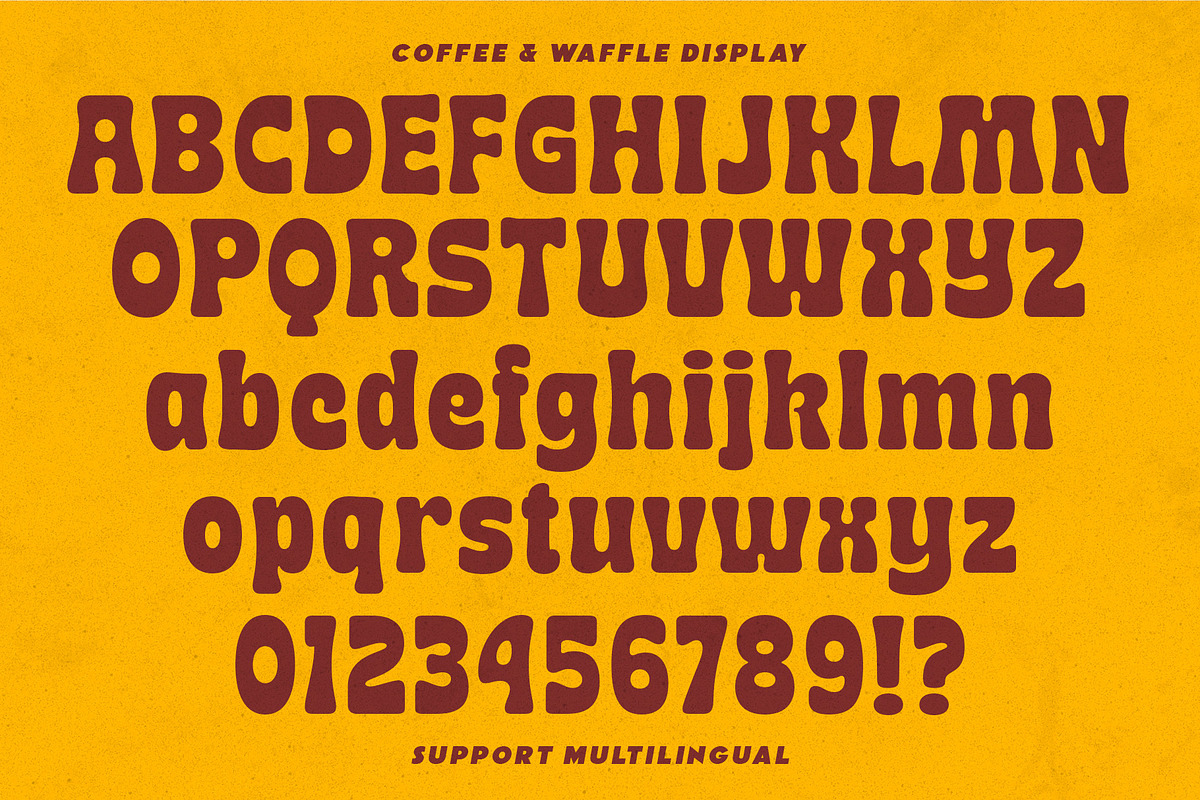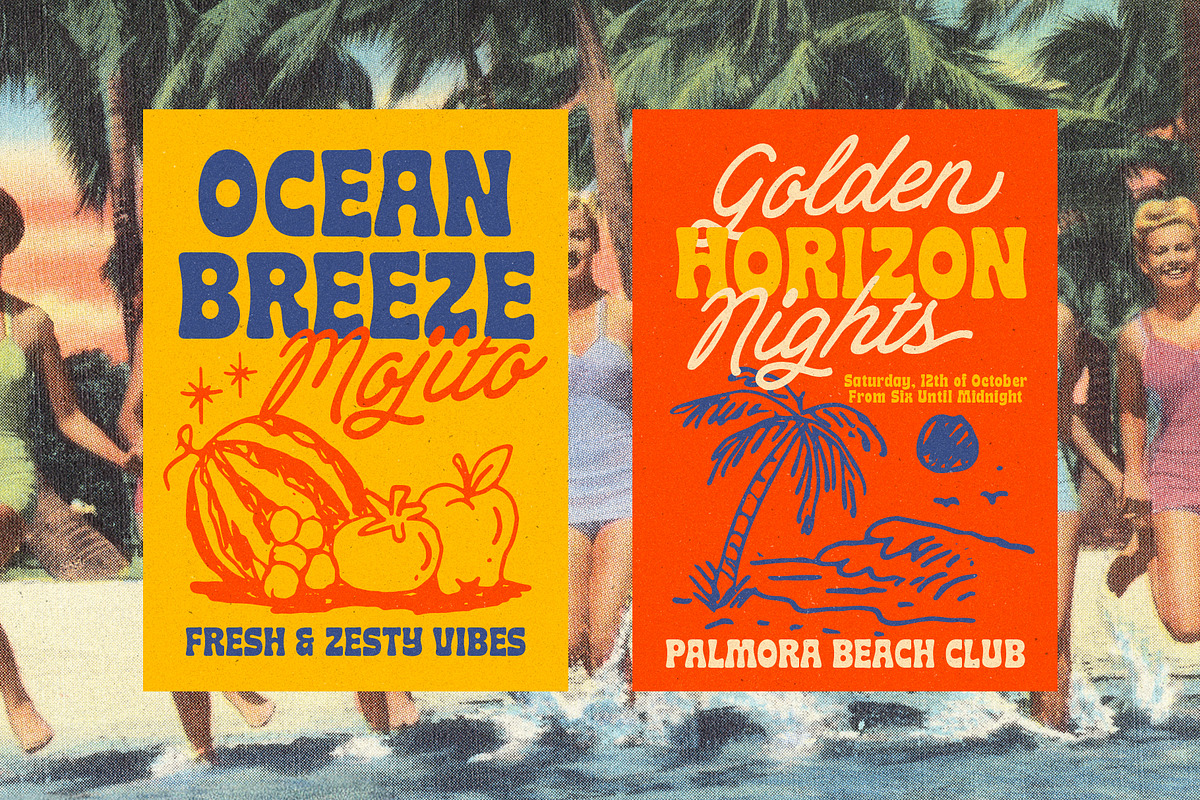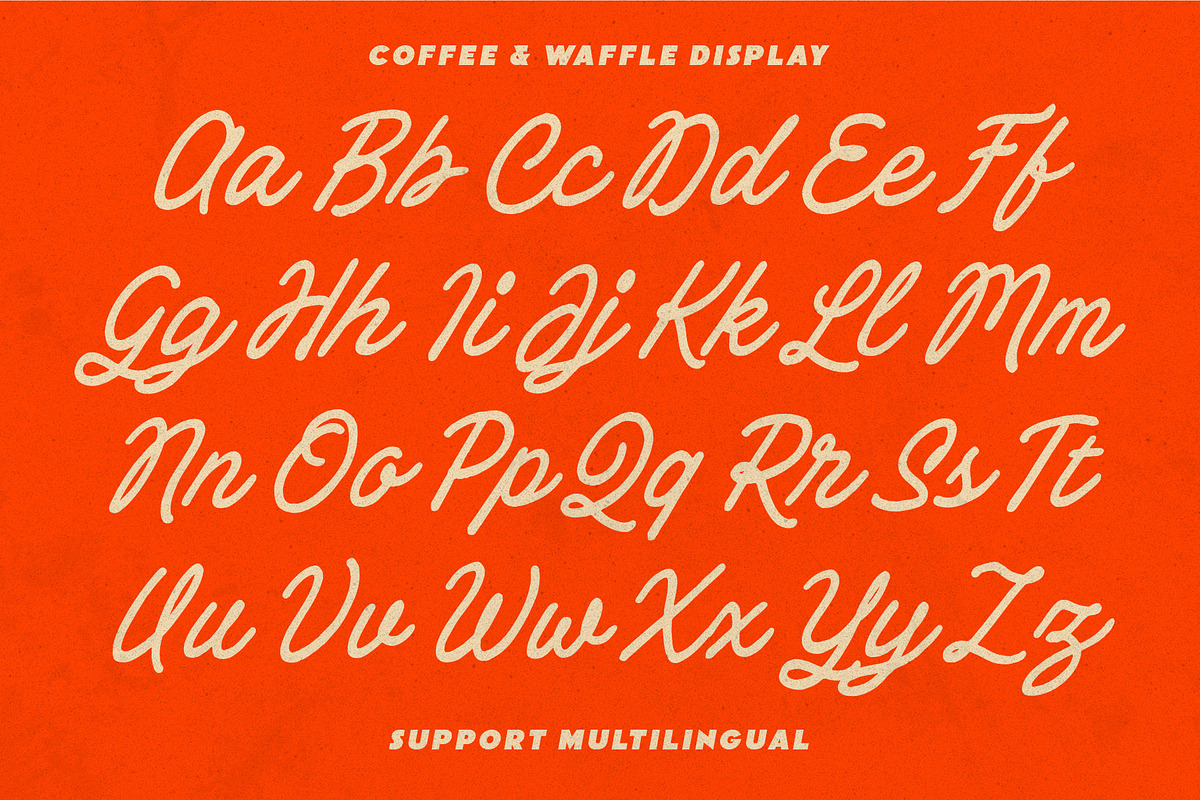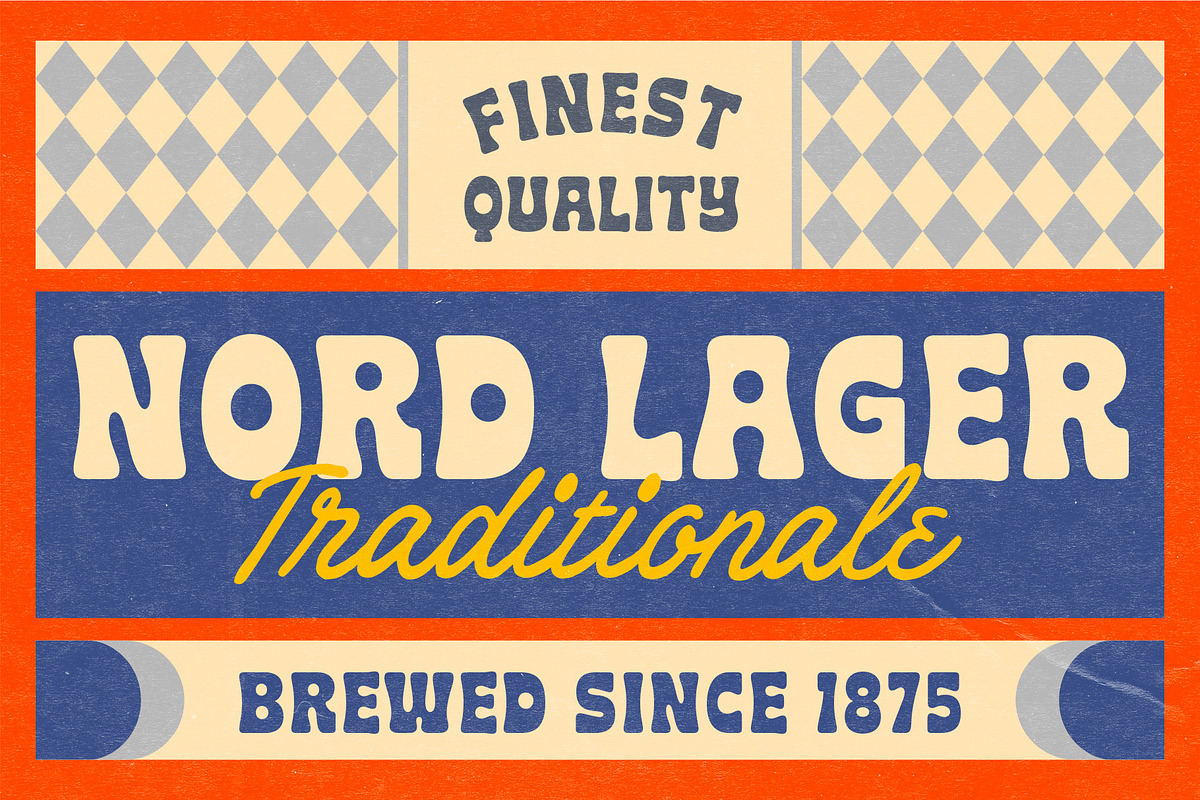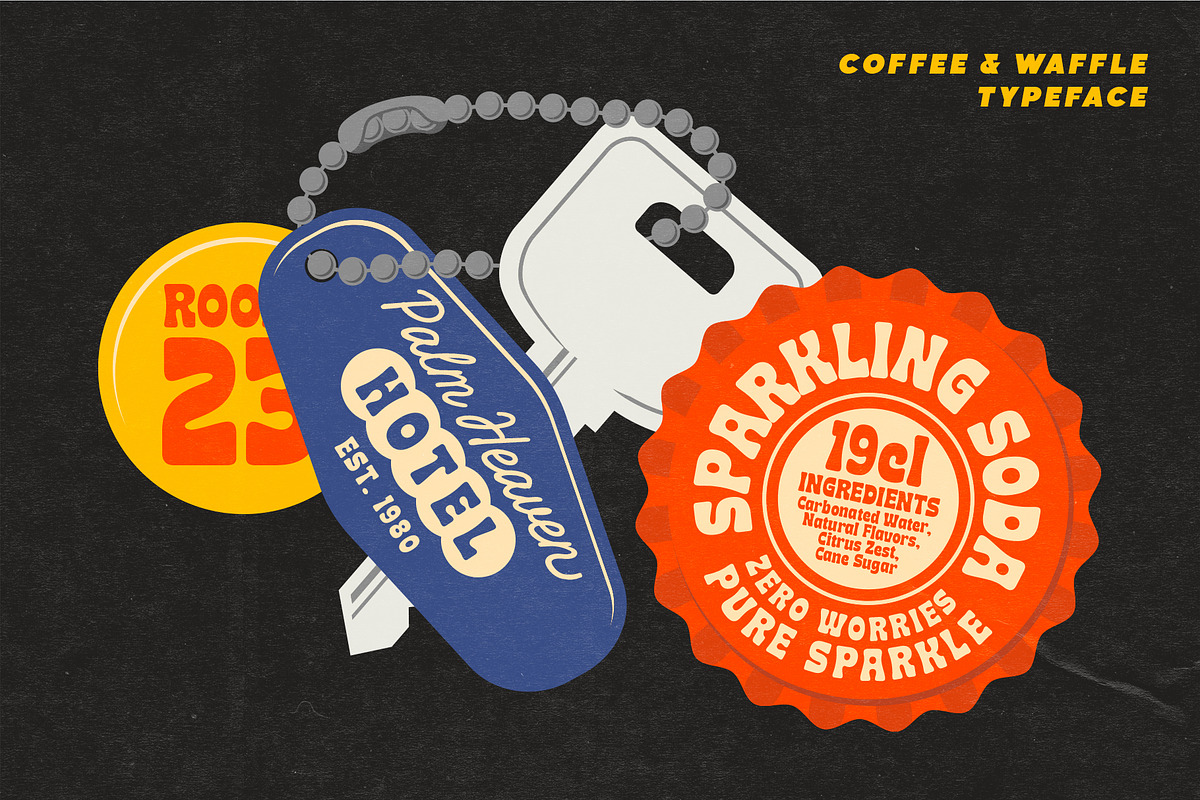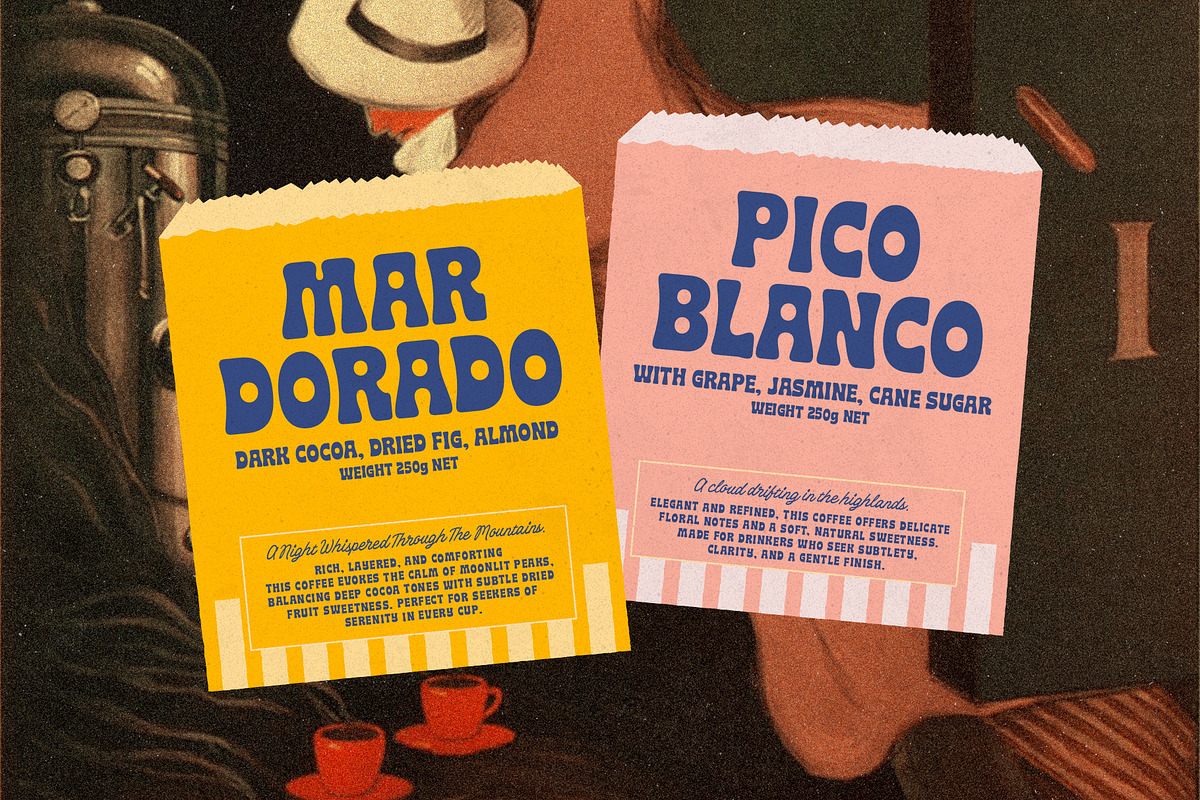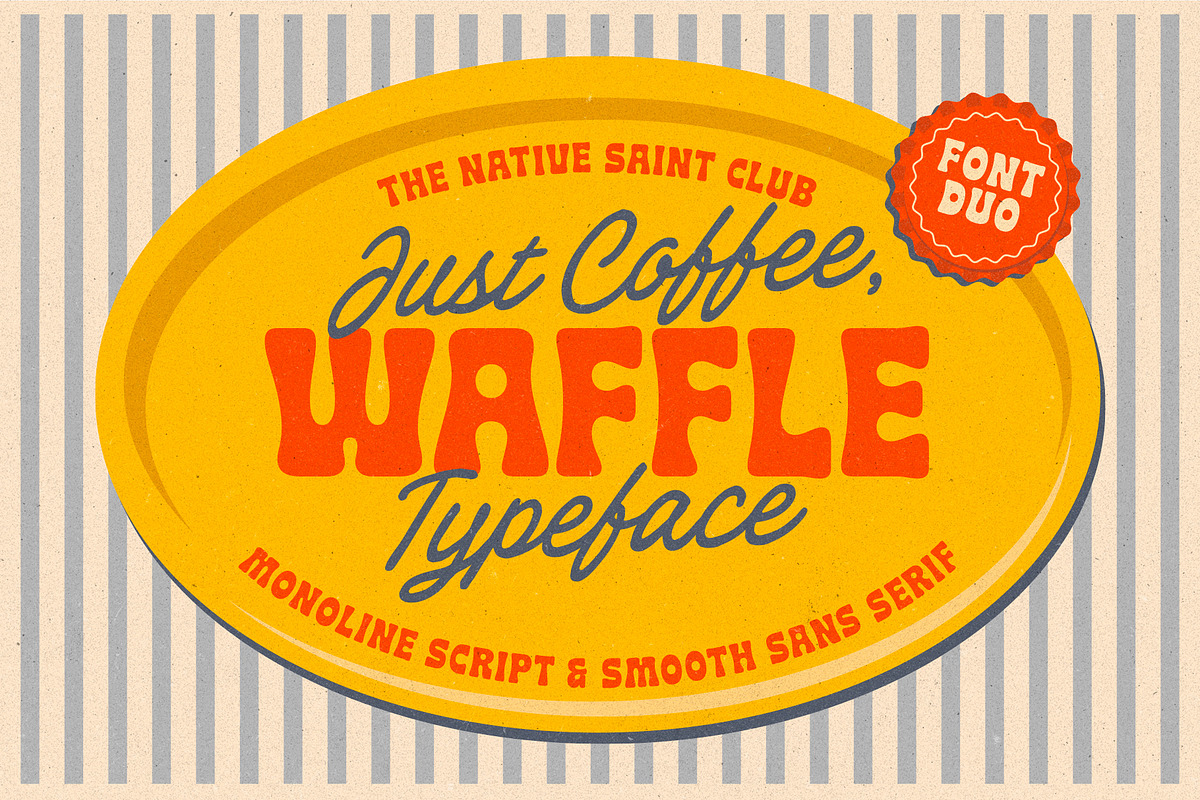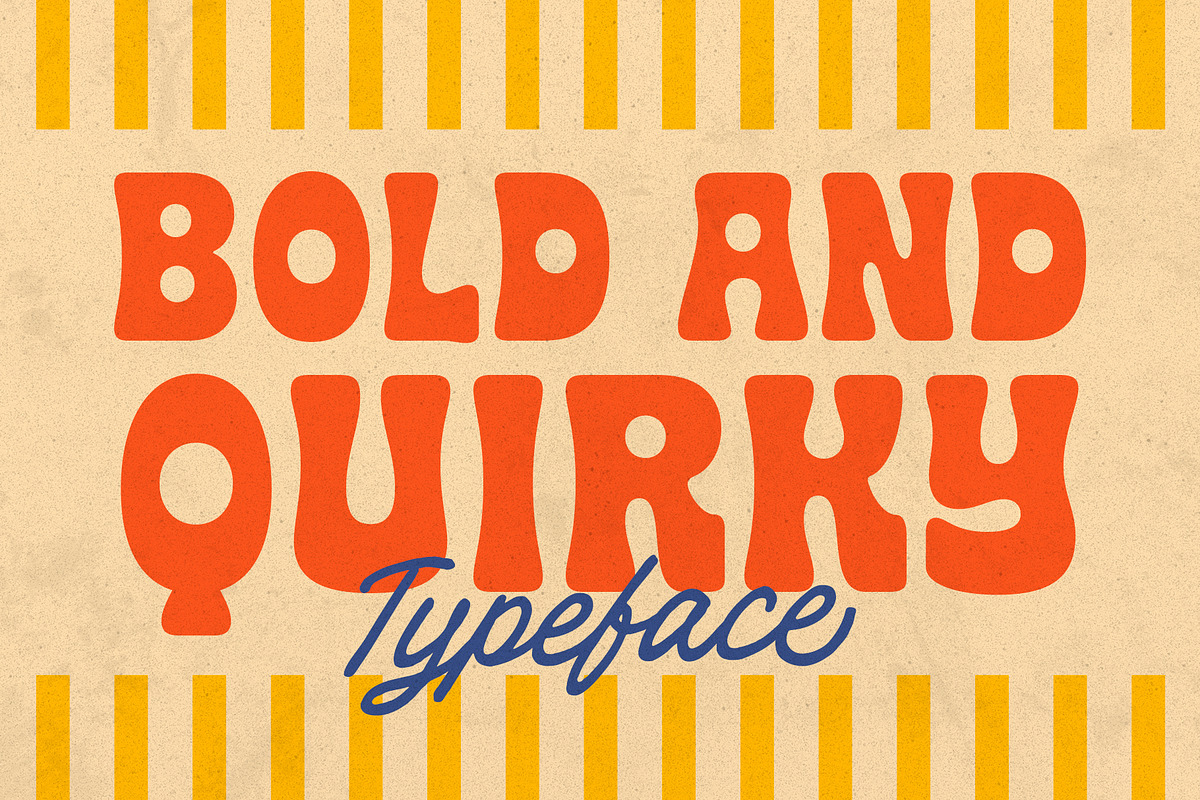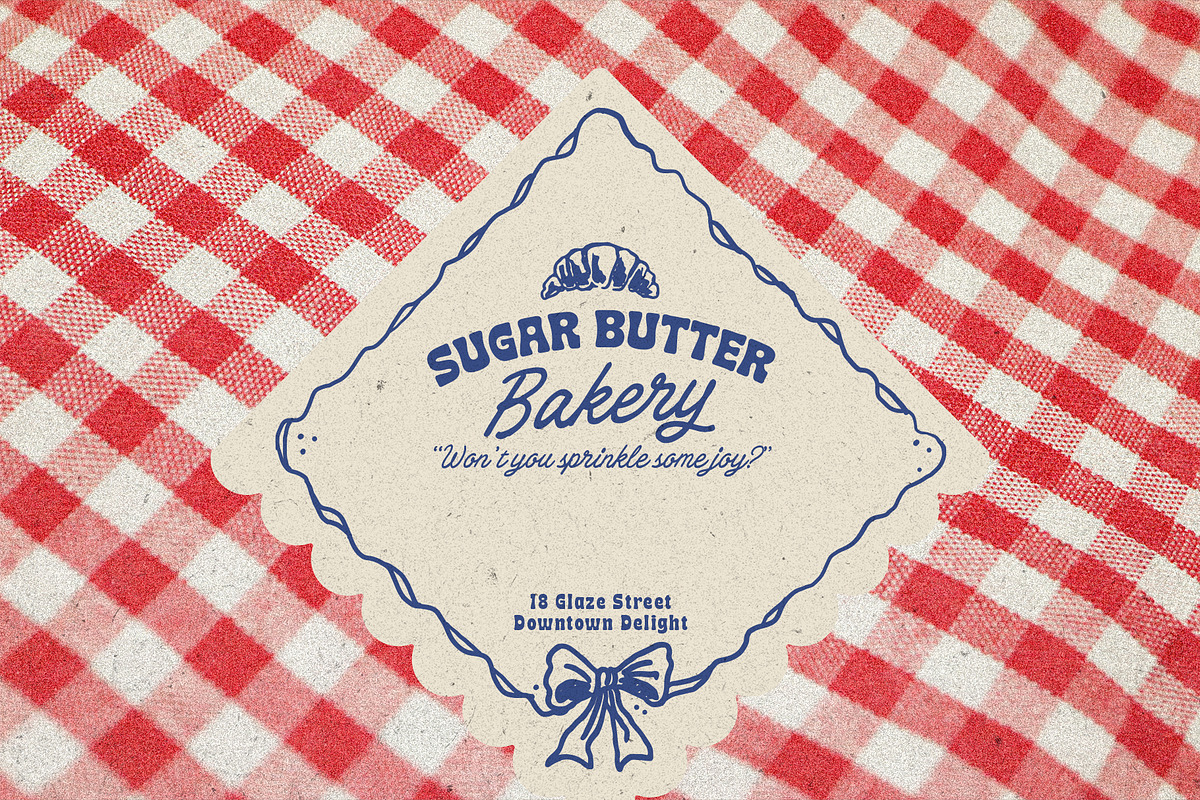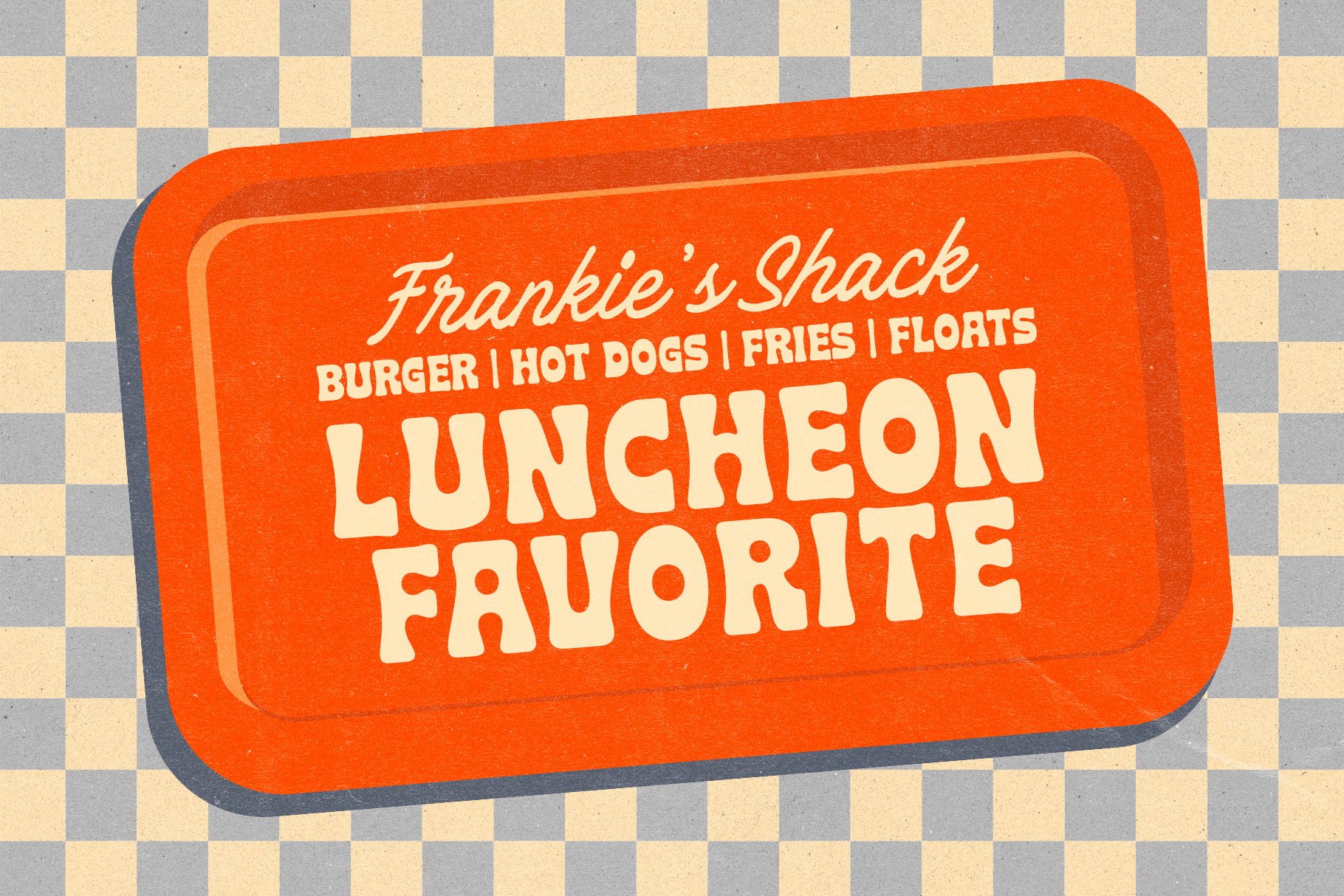
TNSC Coffee & Waffle - Font Duo!
TNSC Coffee & Waffle, a playful yet versatile font duo that combines a smooth sans serif with a monoline script. Inspired by vintage coffee shops, classic diners, and bold retro packaging, this typeface brings warmth, character, and a touch of nostalgia to your creative projects.
Perfect For: Coffee shops, bakeries, branding projects, retro posters, packaging design, and more.